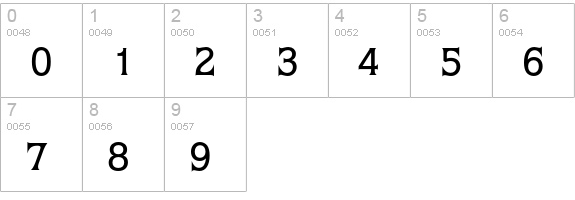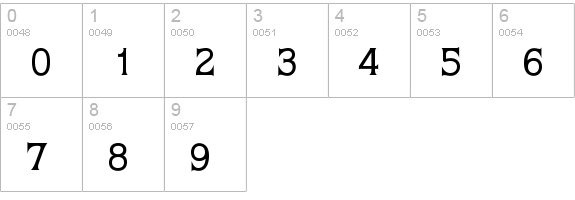
QuorumEF-Medium Font Details
QuorumEF-Medium is a balanced, medium-weight variant in the QuorumEF typeface family \xE2\x80\x94 well suited to sub-headlines, navigation, and balanced editorial work.
Introducing QuorumEF-Medium, a sleek and sophisticated font that combines elegance with a touch of modernity. With its clean lines and balanced proportions, this versatile typeface is perfect for a wide range of design projects. Whether you're designing a logo, creating a website, or crafting a professional document, QuorumEF-Medium will add a touch of class and professionalism to your work. Its medium weight strikes the perfect balance between boldness and subtlety, making it ideal for both headlines and body text. But what sets QuorumEF-Medium apart from other fonts is its incredible value - it's completely free! That's right, this stunning font is freely available to download at FontsMarket.com. Now you can elevate your designs without breaking the bank. QuorumEF-Medium is designed with legibility in mind, ensuring that your message is clear and easy to read. Its carefully crafted letterforms and generous spacing make it a pleasure to read, even in longer passages of text. Whether you're designing for print or digital, QuorumEF-Medium is a versatile font that will make your projects shine. Its timeless aesthetic and attention to detail make it suitable for a wide range of applications, from branding and advertising to editorial design and more. So why wait? Download QuorumEF-Medium today for free at FontsMarket.com and take your designs to the next level. With its sleek and sophisticated style, this font is sure to make a lasting impression on your audience.